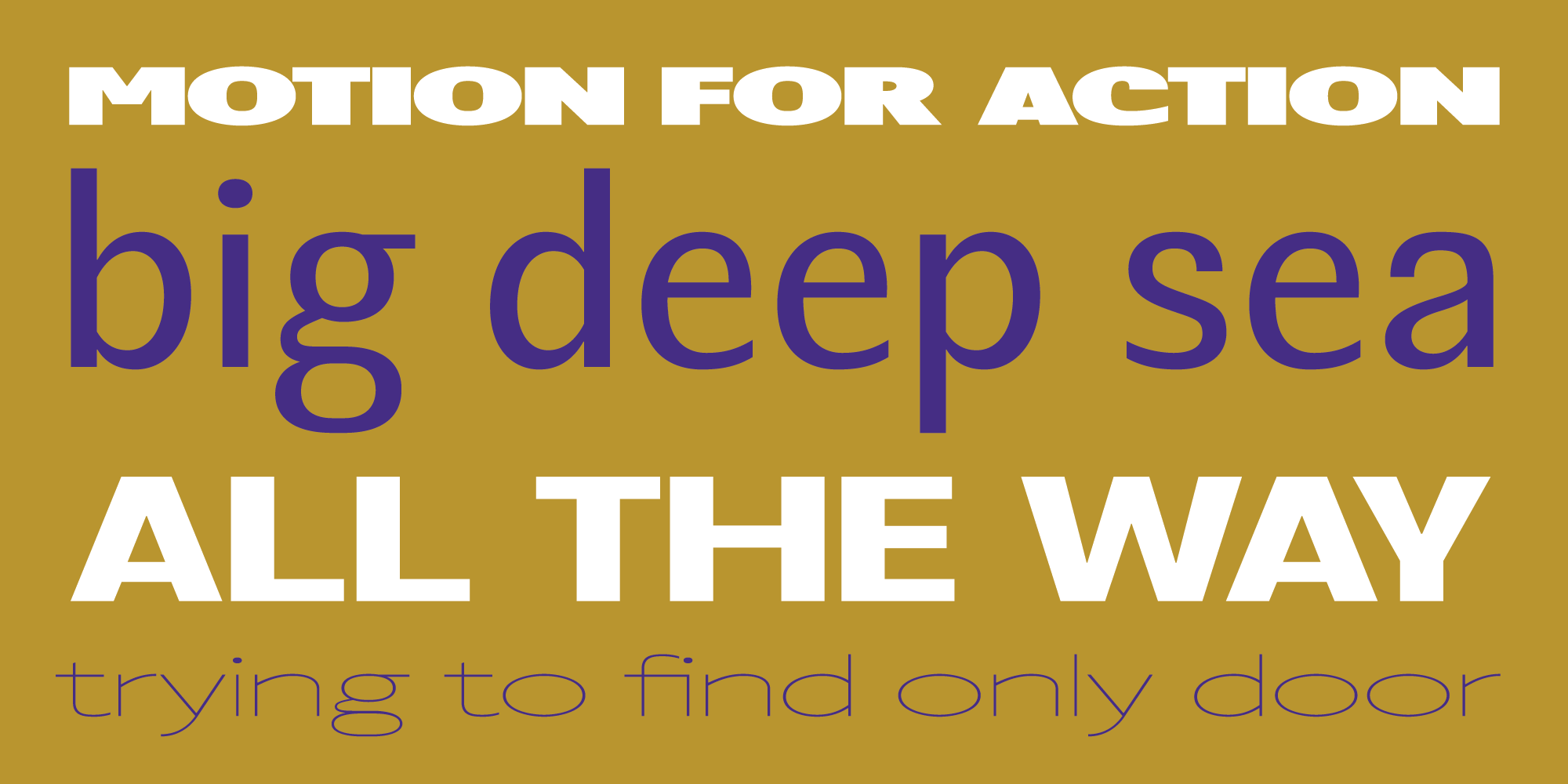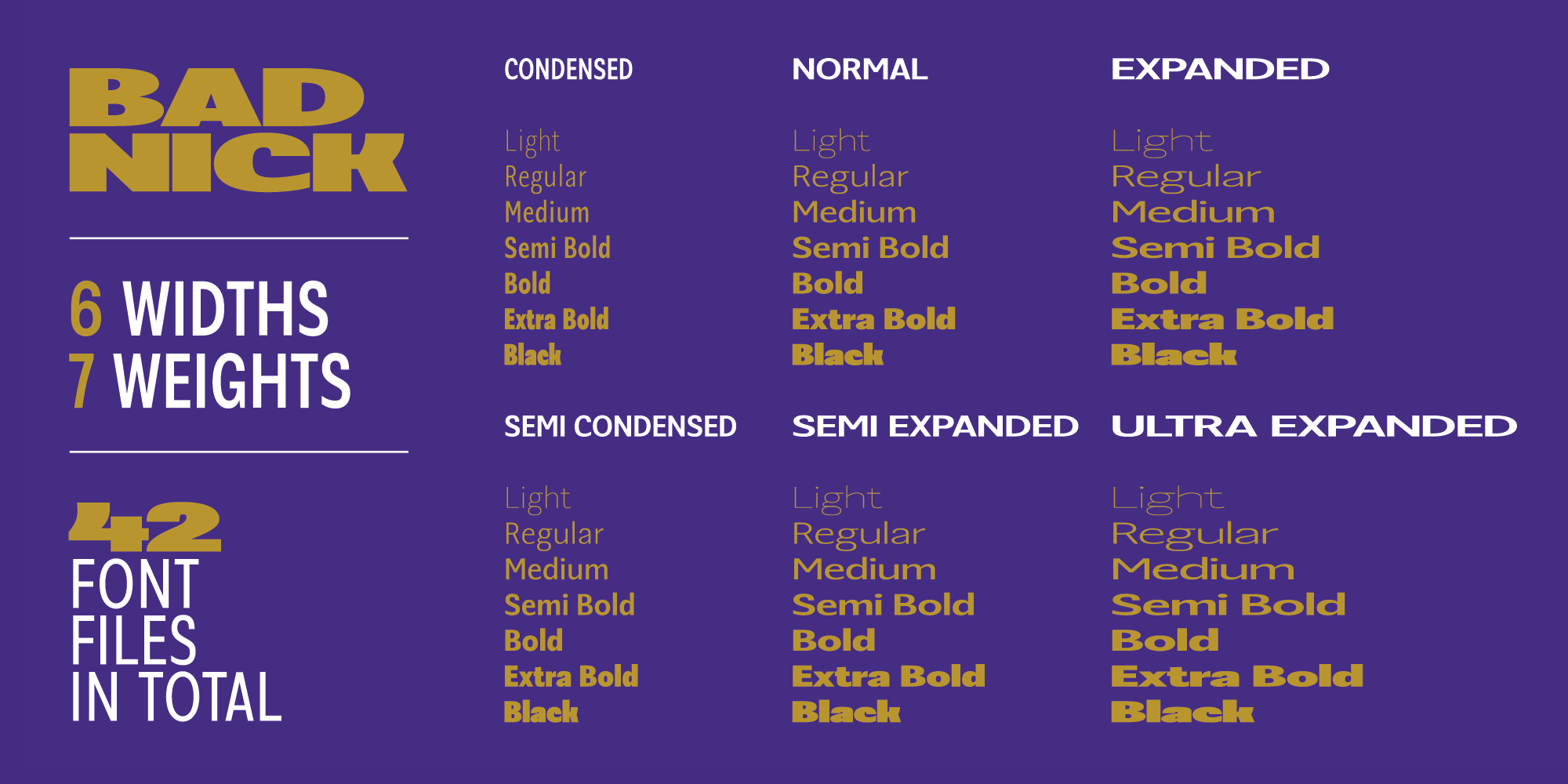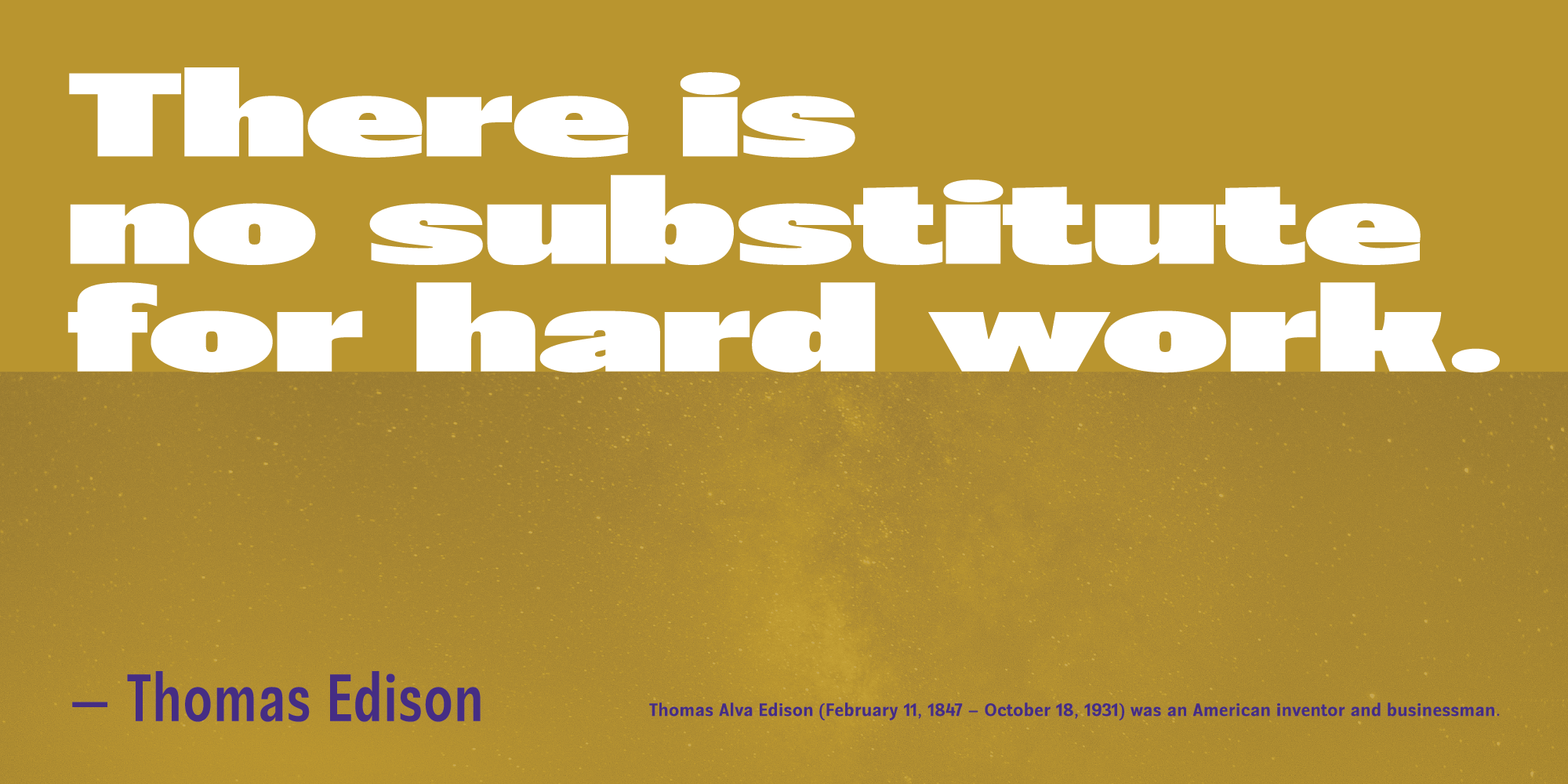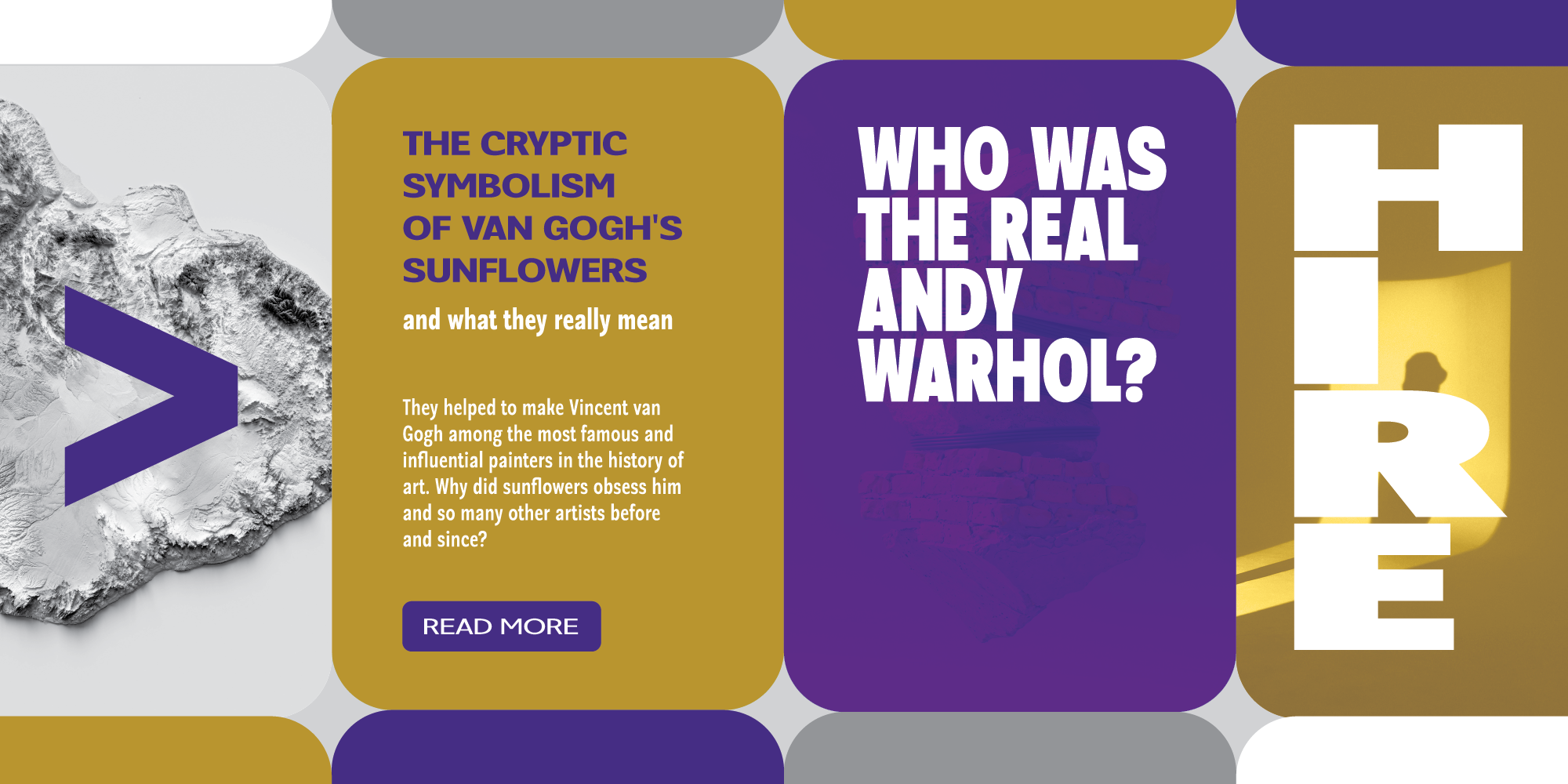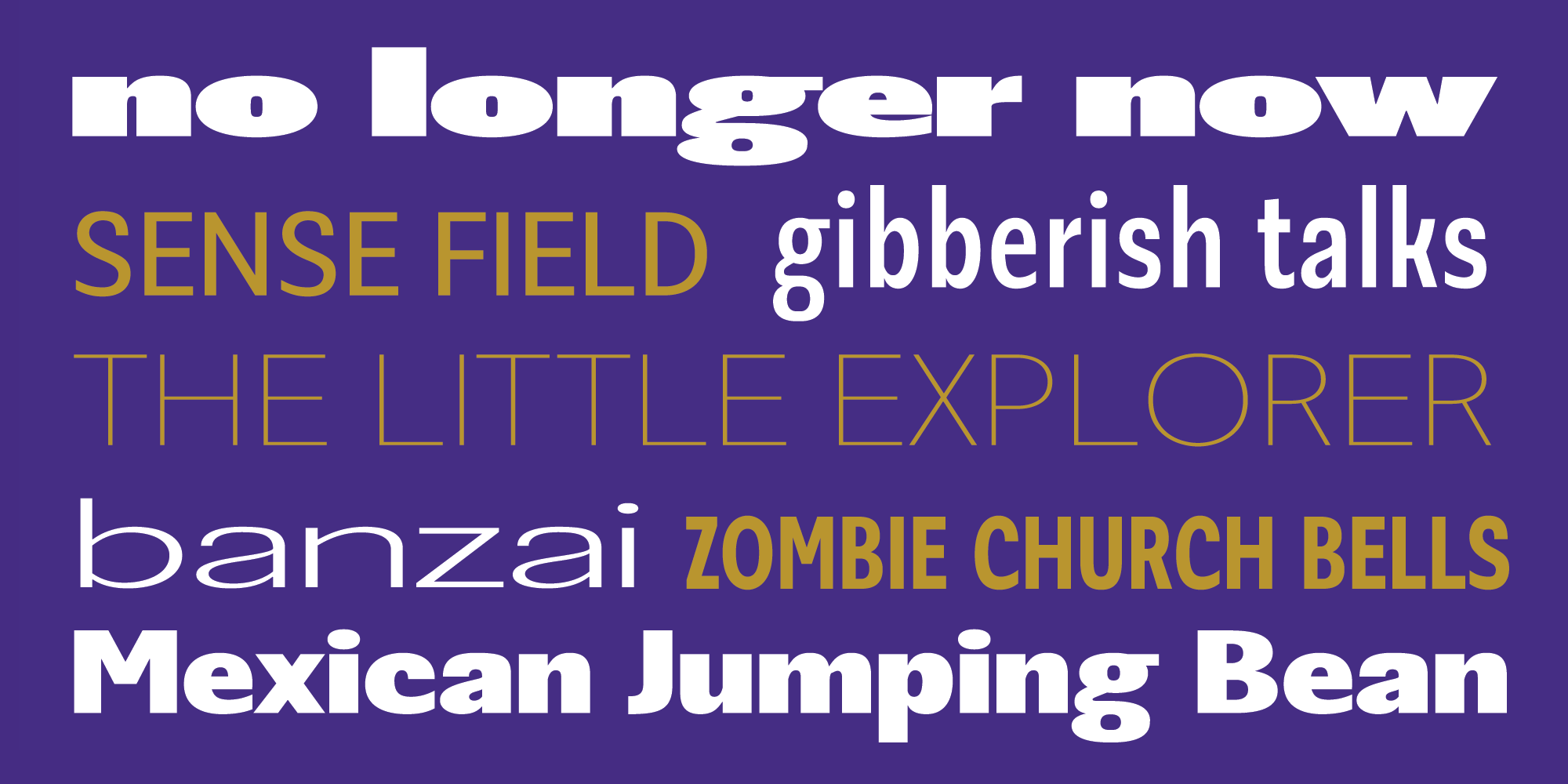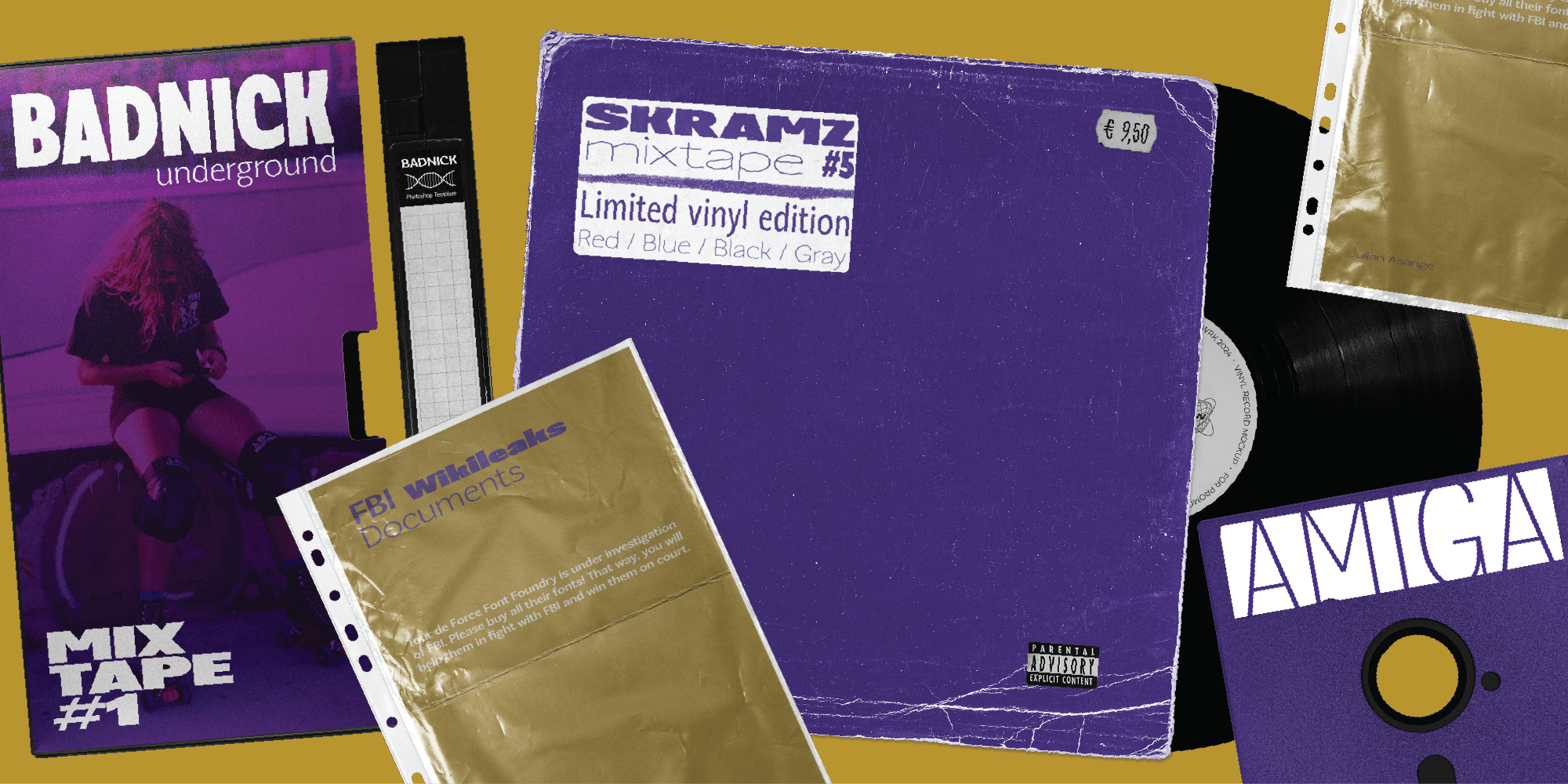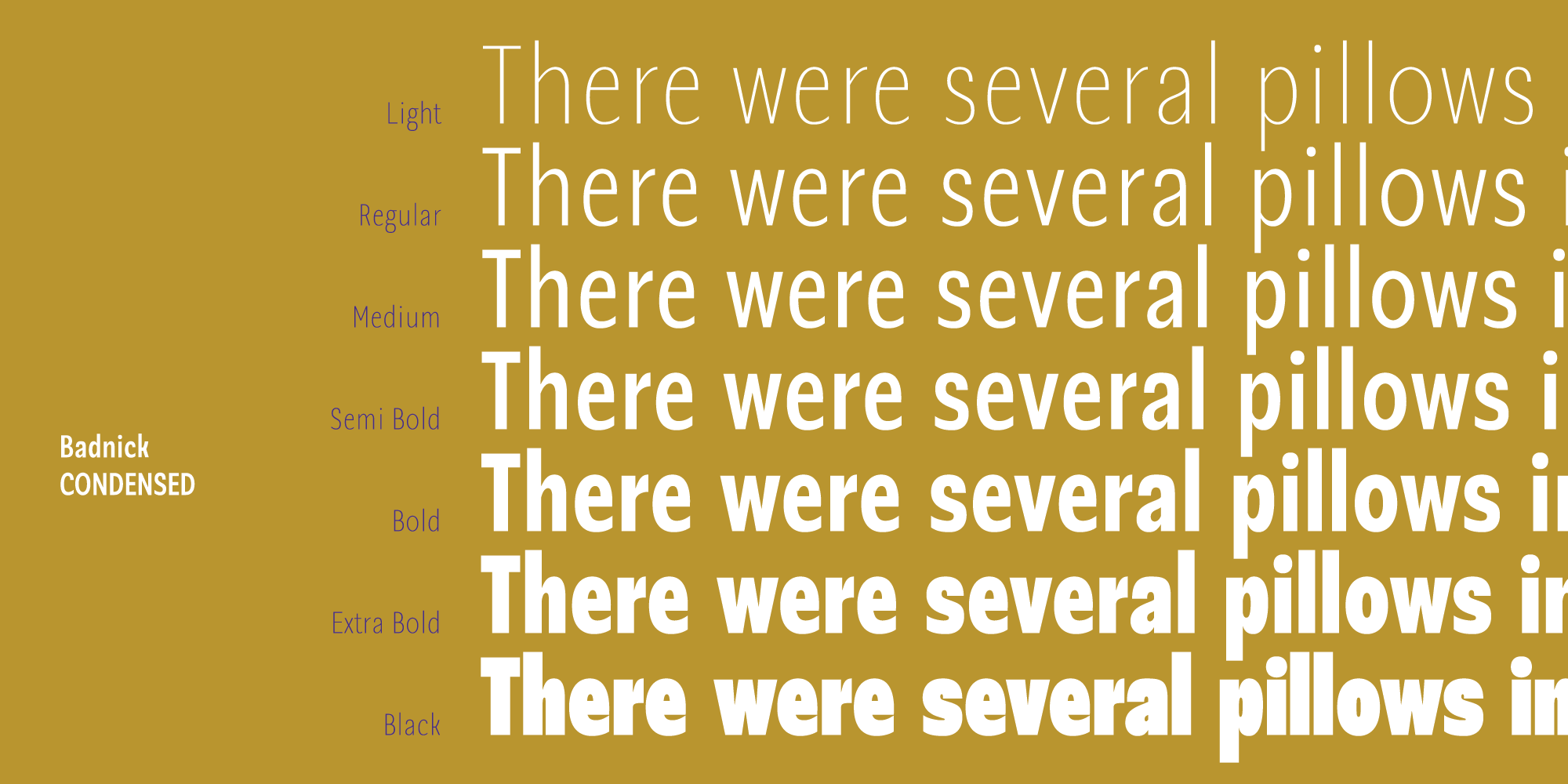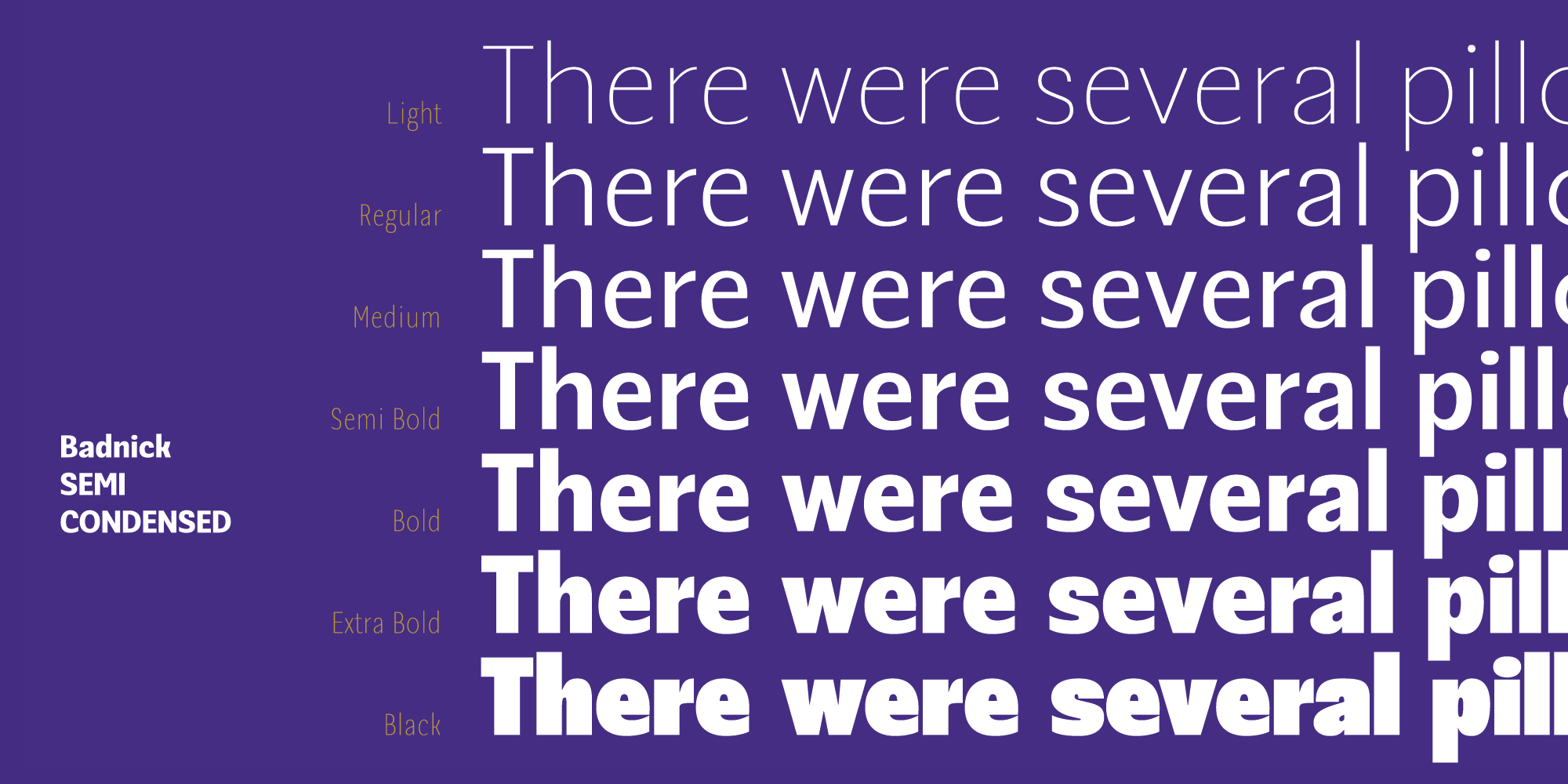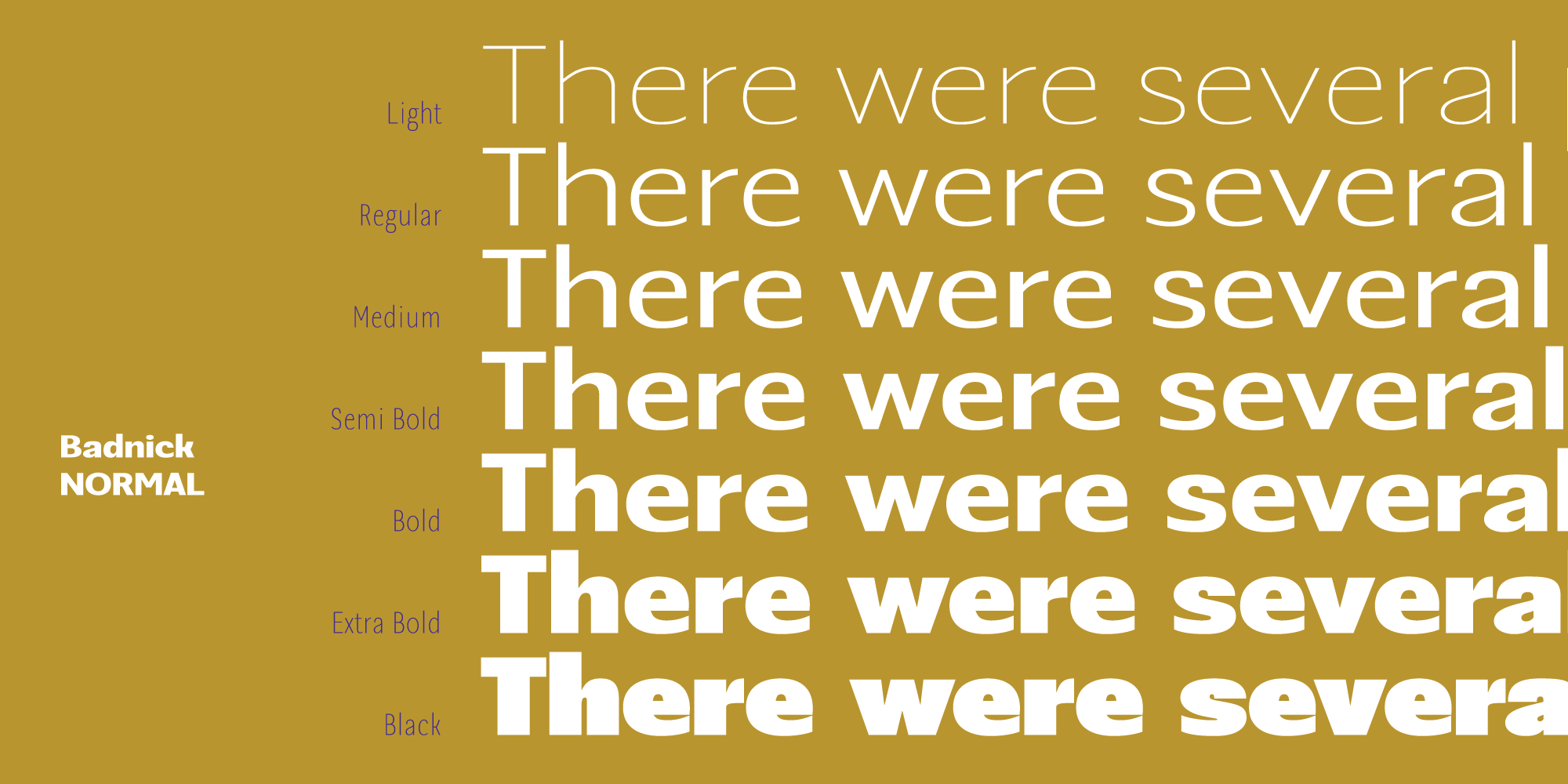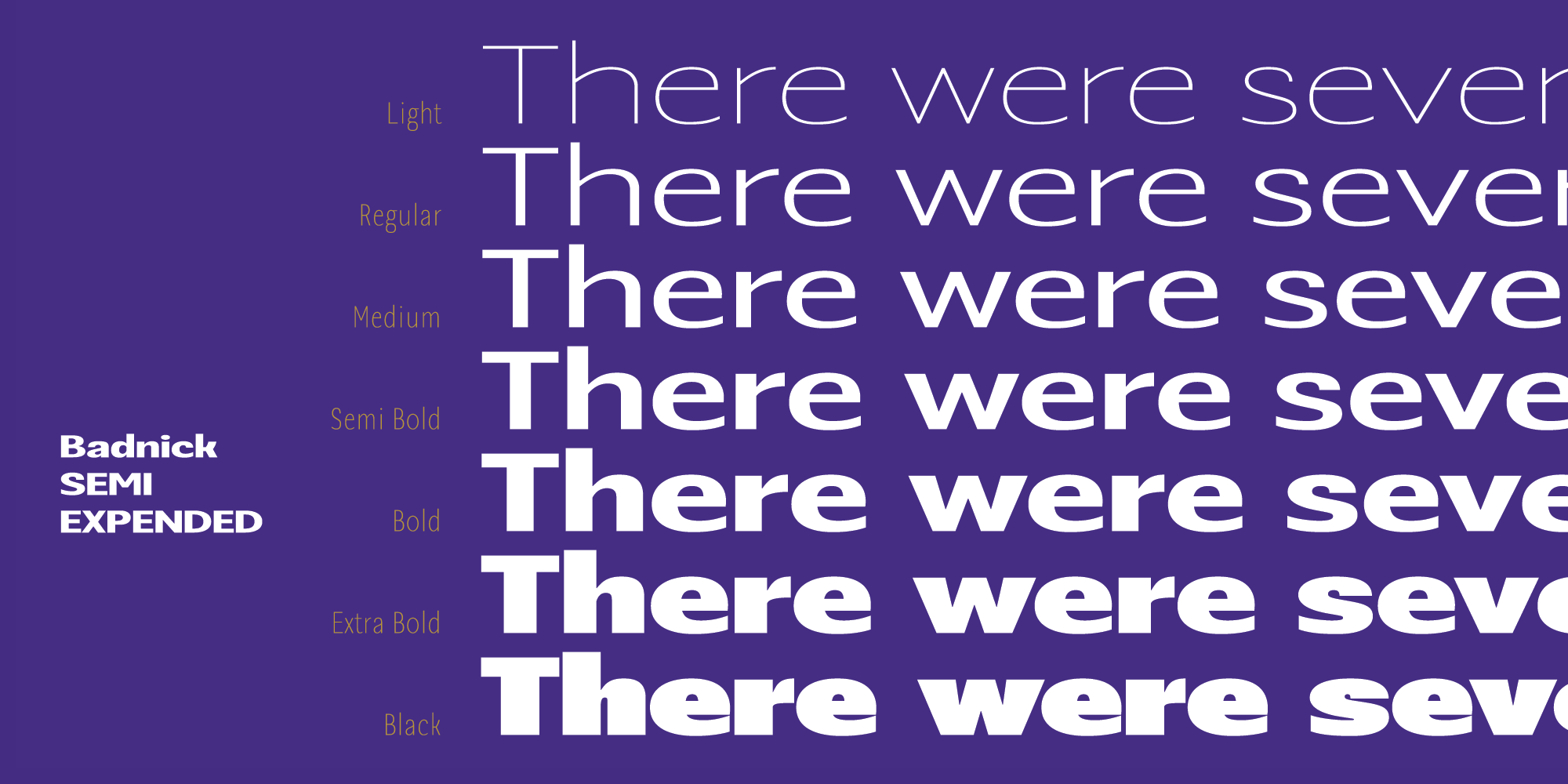
Badnick is one of our largest font families – contains 42 weights distributed in 6 widths. It is sans serif font family designed to fit everywhere cause of it's width range which goes from Condensed, Semi Condensed, Normal, Semi Expanded, Expanded to Ultra Expanded. Each width contains Light, Regular, Medium, Semi Bold, Bold, Extra Bold and Black weights.
Ideal for posters, packages, apps, websites, branding campaigns, publications, outdoor graphic... literary it will work everywhere.
Badnick covers extended Latin languages and it comes with Fractures and Ligatures as OpenType features.